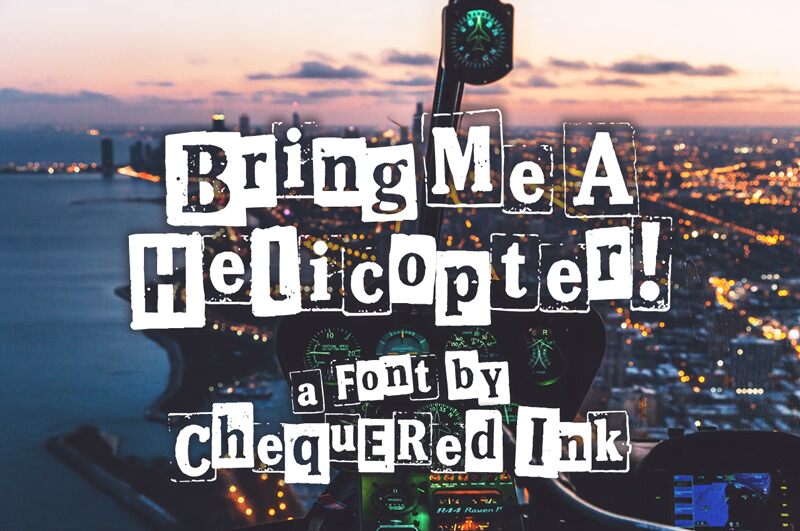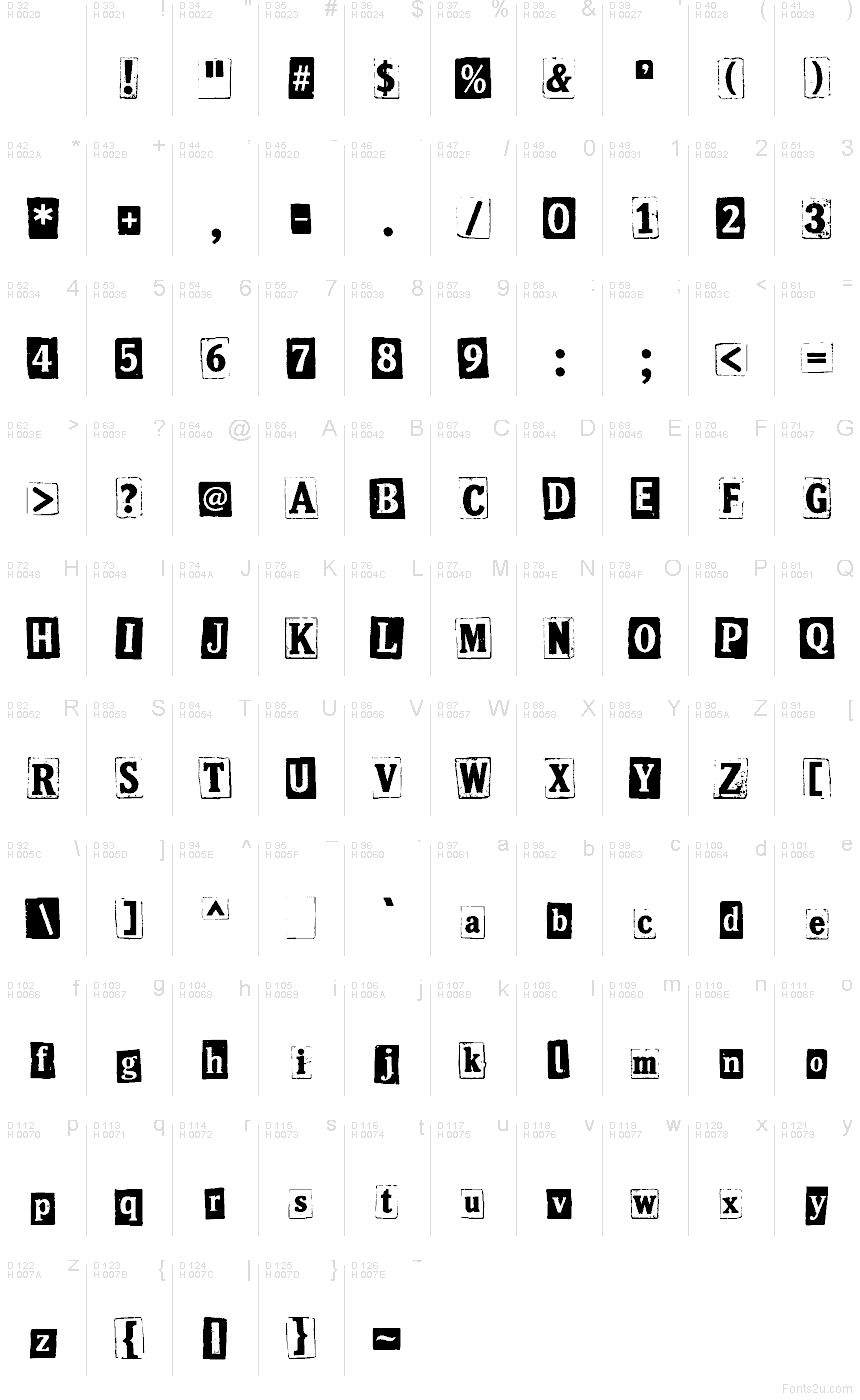
Bring Me A Helicopter! is a free ransom-note display font by Chequered Ink, built from mismatched letters that look clipped from different printed sources and pasted into rough blocks. The mix of chunky serif forms, uneven edges, and battered texture gives the font a scrappy, handmade urgency that feels more zine collage than polished poster type.
That makes this free font a natural fit for punk flyers, indie album art, zine covers, horror-comedy title cards, and rebellious packaging where the cut-and-paste attitude is part of the message. It also works well for short headlines and pull quotes, because the letters carry enough irregular character to create movement even in just a few words.
Bring Me A Helicopter! font presentation and specimen
Bring Me A Helicopter! font character map
Bring Me A Helicopter! font character map: Basic Latin, page 1
Glyphs in the Bring Me A Helicopter! font — Basic Latin, page 1